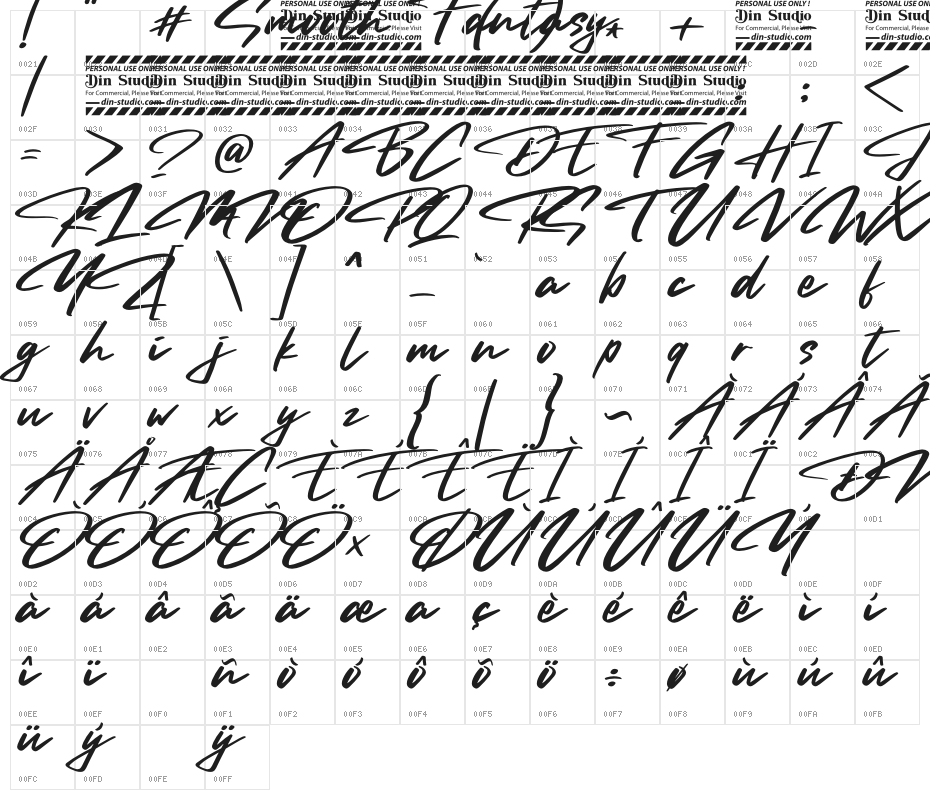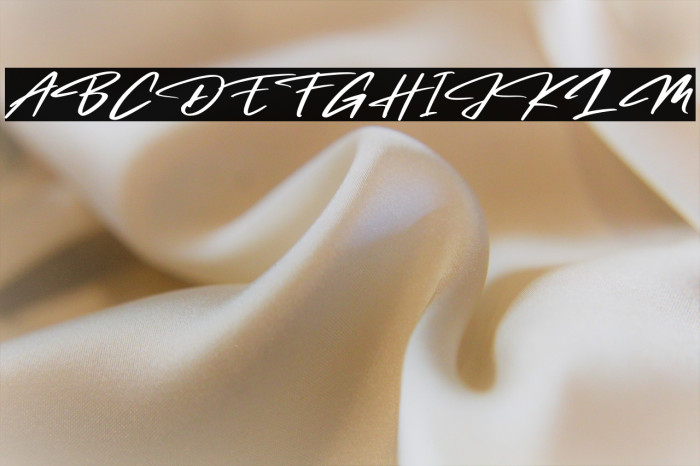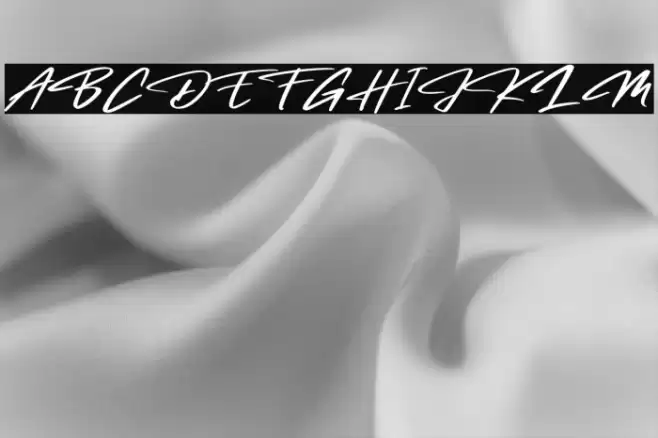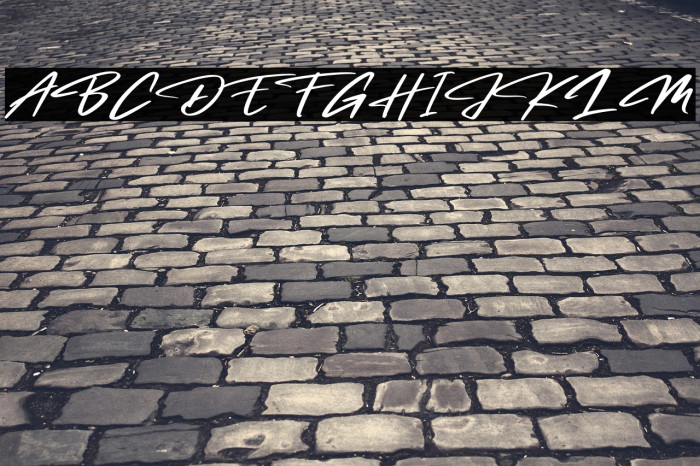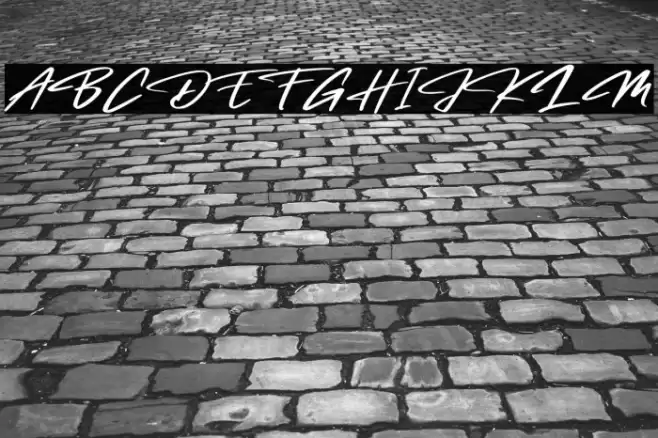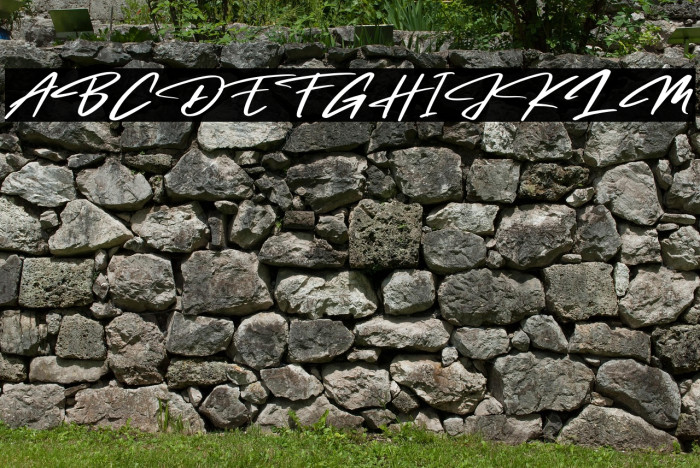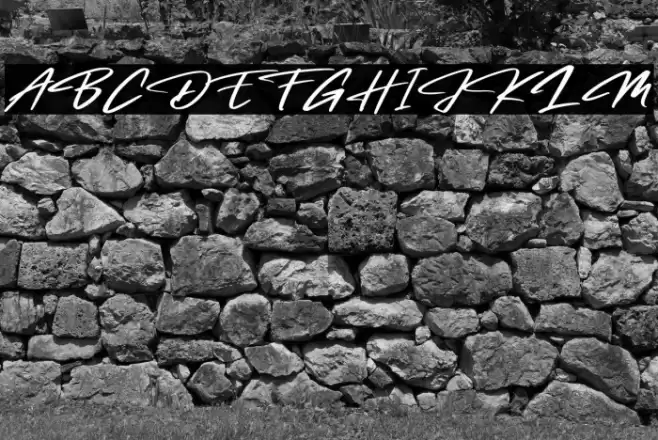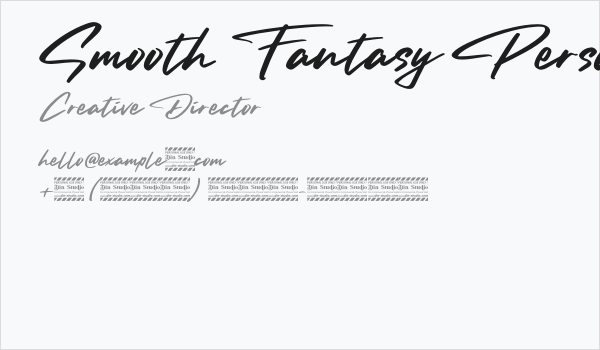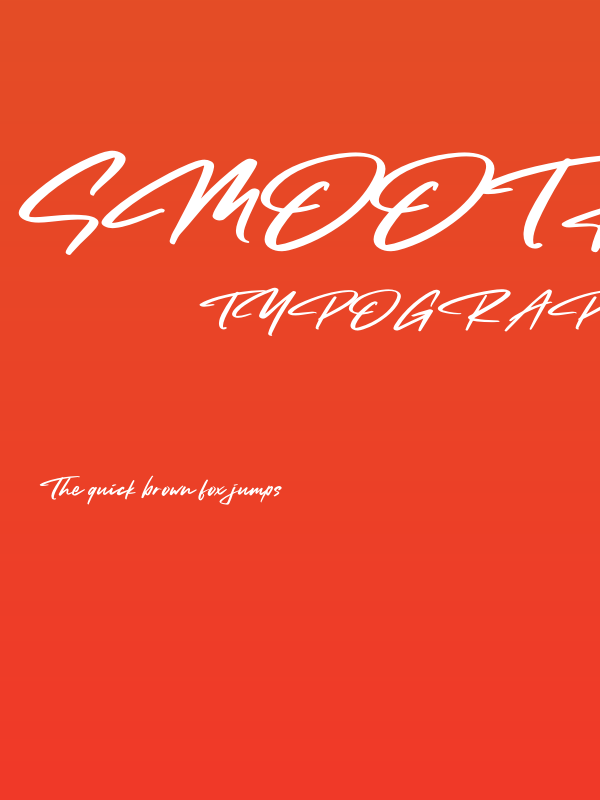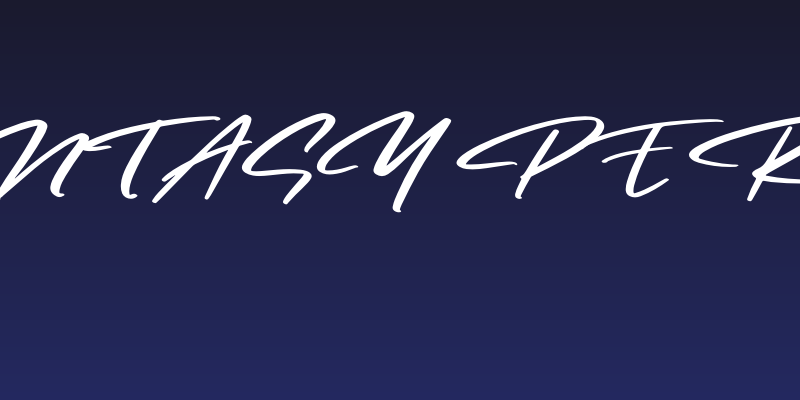
Smooth Fantasy Personal Use Font
Smooth Fantasy Personal Use Description
This font features a dynamic and fluid script style, characterized by its elegant and flowing letterforms. The uppercase letters exhibit a graceful, cursive appearance with smooth transitions and a slight slant, giving a sense of motion and sophistication. The lowercase letters maintain a consistent style, with rounded edges and a harmonious balance between strokes. The font includes numerals and a selection of special characters, all designed to complement the overall aesthetic. Its artistic flair makes it suitable for creative and expressive projects.